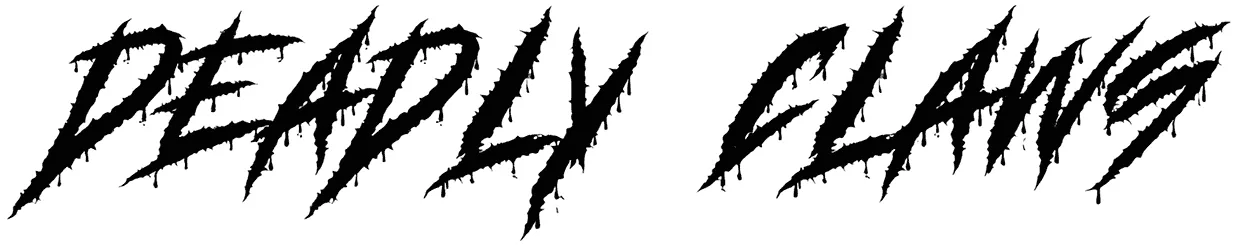
Deadly Claws Font
Deadly Claws is an example of a horror font that includes almost all scary elements except numbers and gives you a lot of space to implement creative ideas without numbers.
This frightening font has thin, sharp letters that do not include lowercase letters and can act like a sword with drops of blood dripping, and create the scariest possible feeling for you. So our suggestion is to use this for Halloween to delight everyone with your creativity.
Font: Deadly Claws Type: Horror Inspired Typeface